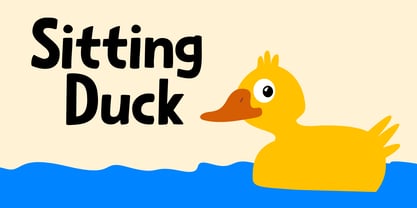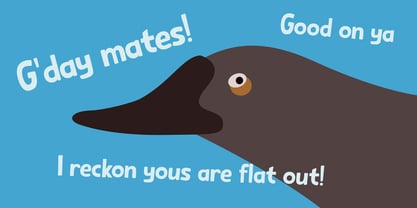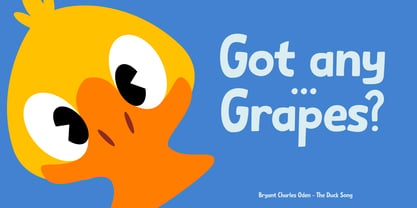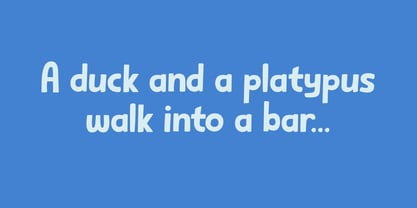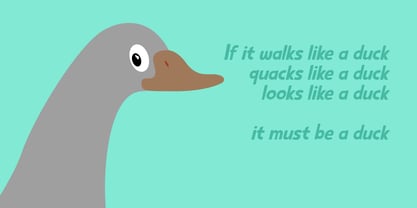
Sitting Duck Pro
by Hanoded
The Sitting Duck Pro Font Family was designed by David Kerkhoff and published by Hanoded. Sitting Duck Pro contains 2 styles and family package options.
I have no particular affection for ducks, nor do I keep them, but I thought it was about time someone named a font after them! Sitting Duck is a jolly comic/kids font. Handmade (of course), cute and useful. Use it for your posters, websites and your packaging designs. And maybe for the cover of a children's book about ducks!
Comes with extensive language support and a cool alternative asterisk in the shape of a duck.